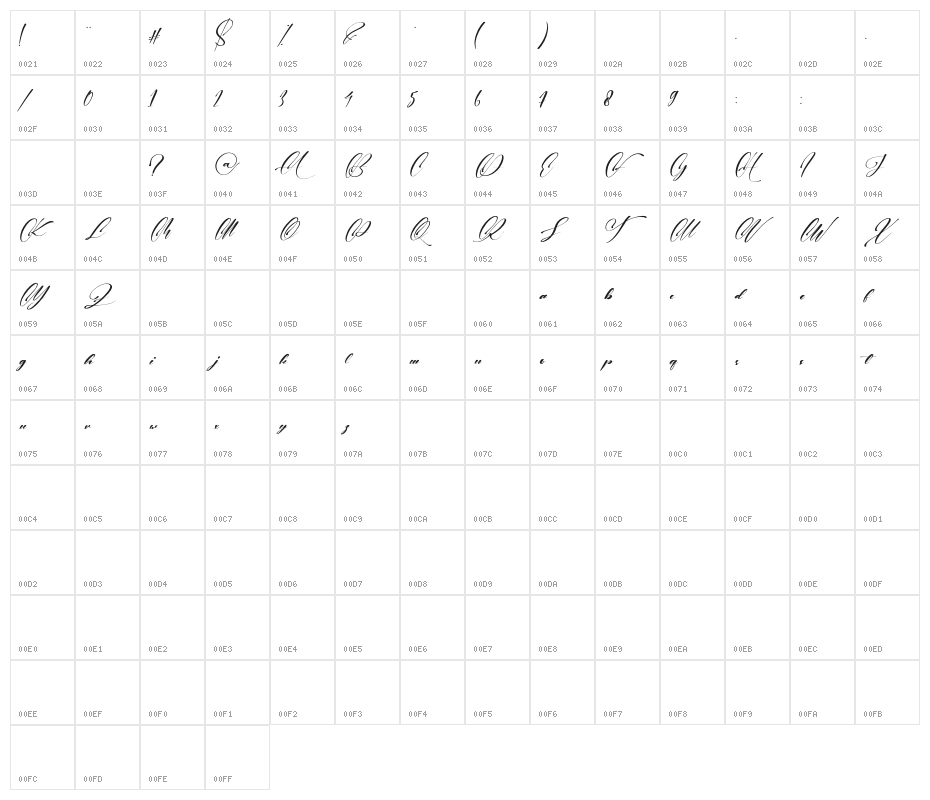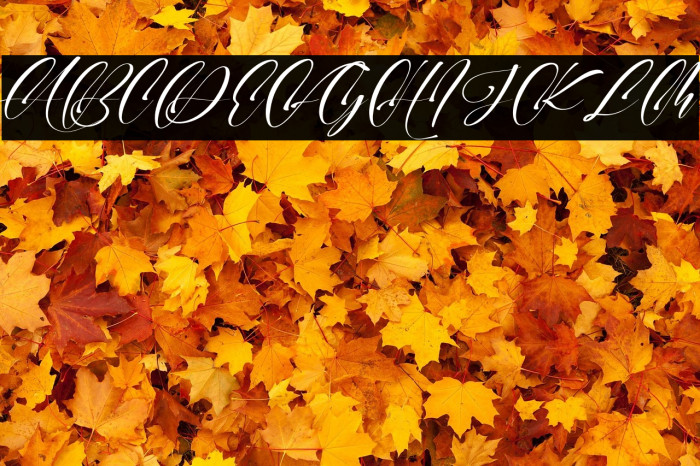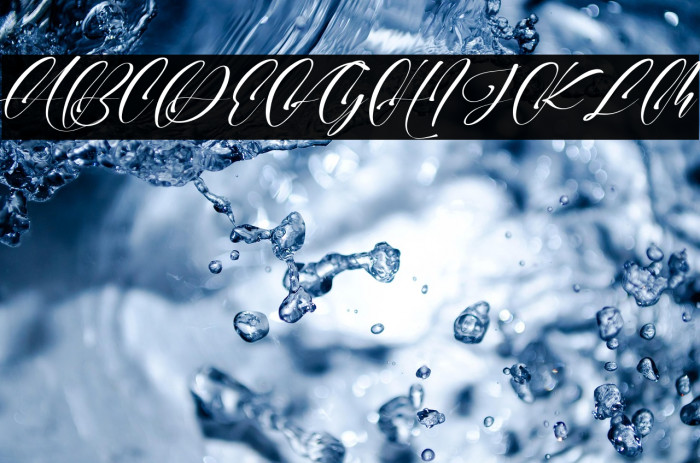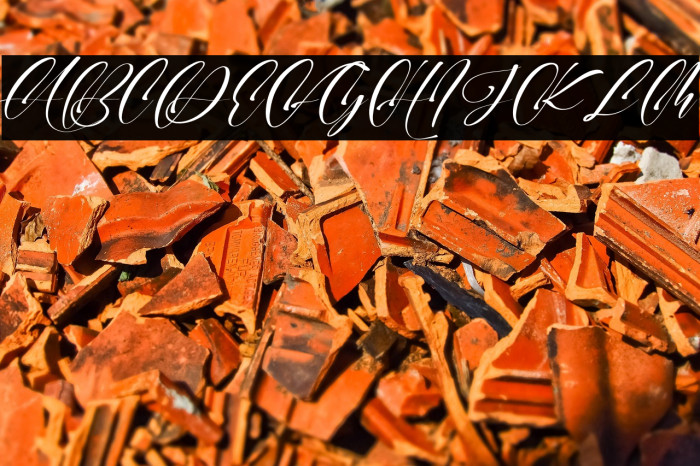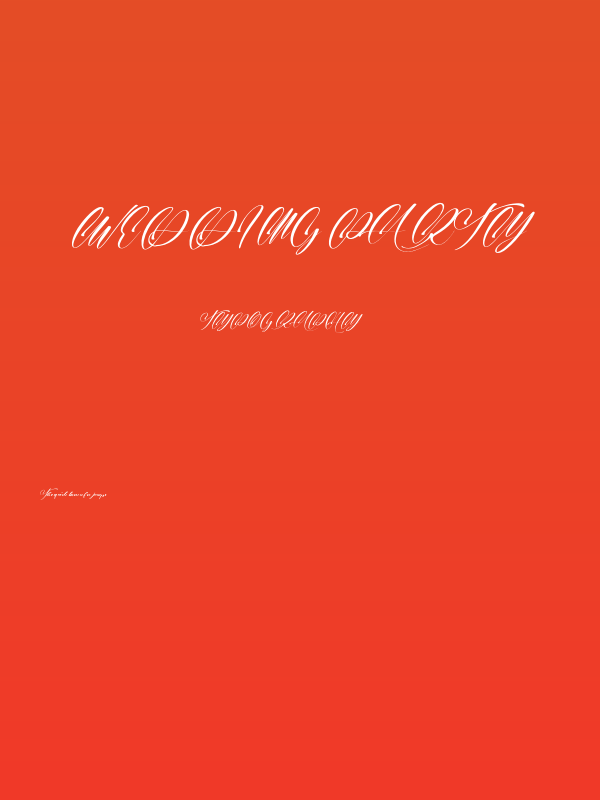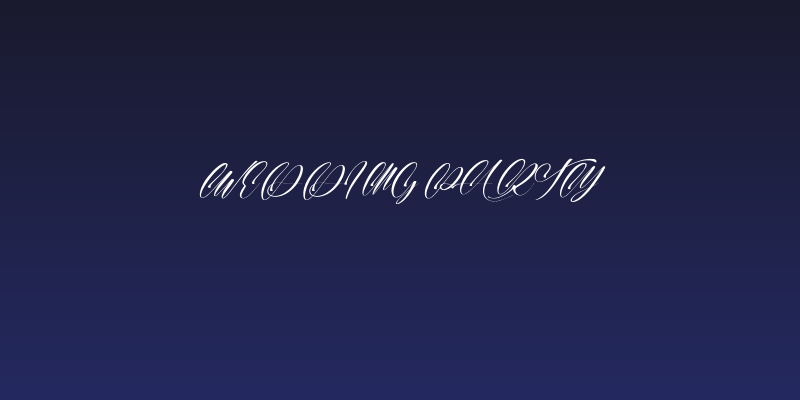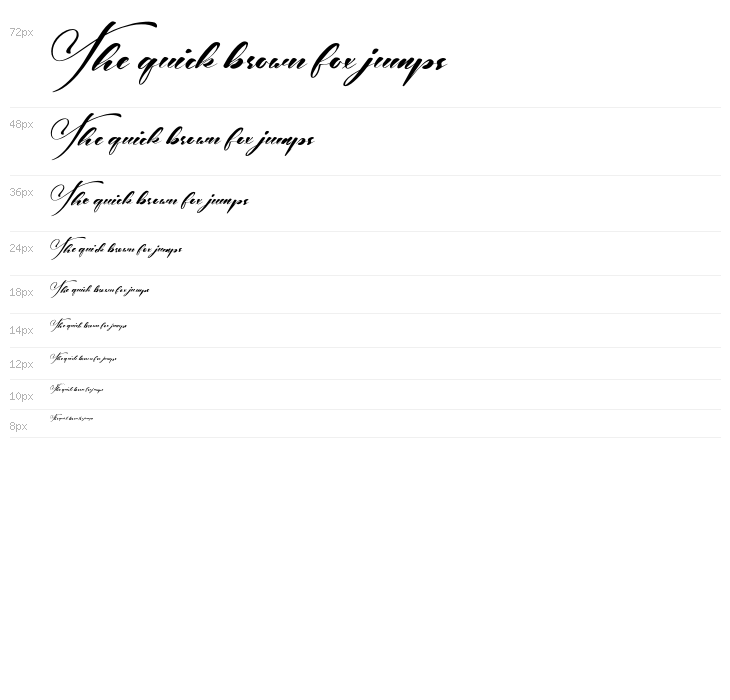
Wedding Party Font
Wedding Party Description
This elegant script font features a flowing, cursive style with intricate loops and flourishes, giving it a sophisticated and ornate appearance. The uppercase letters are particularly elaborate, with extended swashes that add a sense of grandeur and formality. The lowercase letters maintain a smooth, connected flow, enhancing readability while preserving the decorative nature of the font. The numerals and special characters are designed to match the overall aesthetic, ensuring consistency across all text elements. This font is ideal for creating a luxurious and romantic atmosphere, making it perfect for formal invitations and elegant branding.
| Use Case | Headlines, Invitations, Logos |
| Proposed Projects | Ideal for wedding invitations, elegant branding, luxury packaging, and formal event materials. |